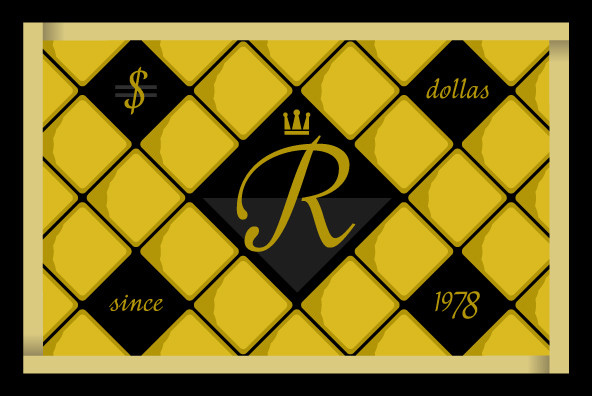
Motiv Font
Motiv Font is perfect for motivational branding projects, fitness coaching communications, personal development materials, inspirational speaker identities, goal achievement campaigns, self-improvement platforms, performance training programs, and empowering advertising messages. This energizing typeface works exceptionally well in both digital applications and print media where motivation and personal empowerment are fundamental design requirements.
What makes Motiv Font so exciting is its dynamic interpretation of motivational energy and personal drive through purposeful letterforms that seem charged with the same inspiring force and unstoppable momentum that propels individuals toward their highest potential. The font features energized characters with motivational proportions, dynamic curves, and empowering details that communicate determination, goal-focused thinking, and the transformative power of personal motivation to overcome obstacles and achieve extraordinary results. Its inspiring personality and achievement-oriented heritage make it ideal for brands seeking to energize and empower their audiences while communicating the mindset and drive necessary for personal and professional success.
The Motiv Font family includes multiple weight variations with different energy intensities, along with dynamic alternates and achievement-focused ornamental elements. Each style maintains the typeface's motivational character while offering comprehensive character sets including goal-oriented numerals, empowering punctuation marks, and special symbols designed to enhance inspirational communications and motivational branding efforts across various empowering contexts.
This remarkable typeface represents the perfect fusion of motivational psychology and contemporary typography for personal development and fitness industries. Whether you're developing coaching business identities, creating fitness program materials, or designing personal development campaigns, Motiv Font Free Download provides the inspirational energy and versatility needed to motivate success-driven audiences. The font's empowering appeal makes it particularly effective for fitness trainers, motivational speakers, life coaches, and businesses helping people achieve their personal and professional goals through dedicated effort and unwavering motivation.
The carefully crafted motivational details and optimized empowering performance in Motiv Font ensure both inspirational authenticity and clear communication across all achievement-focused applications. Its energizing presence makes it perfect for motivational branding, empowering marketing materials, and inspirational communications where its full motivational character can create lasting drive and connections with audiences seeking the motivation, energy, and unstoppable mindset necessary to transform their lives and achieve their most ambitious goals.